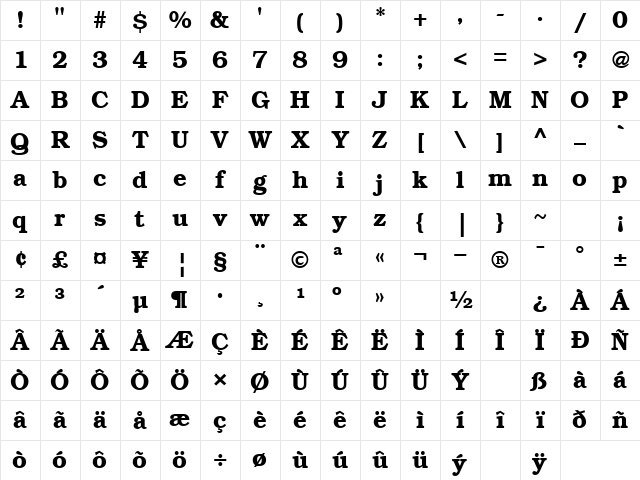
BookDemi Normal
Design Context for BookDemi
BookDemi is a composed and adaptable typeface that performs quietly and consistently across a wide range of design contexts.